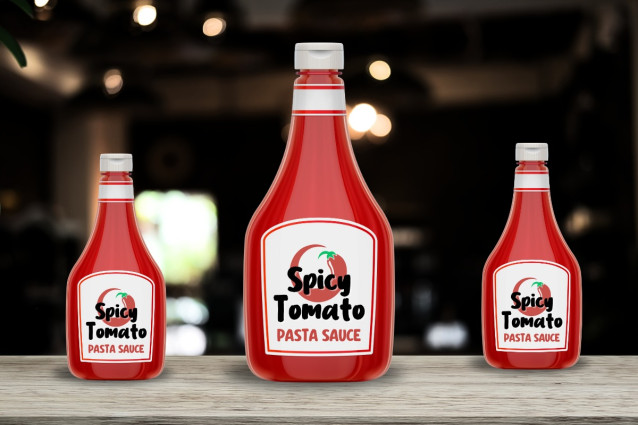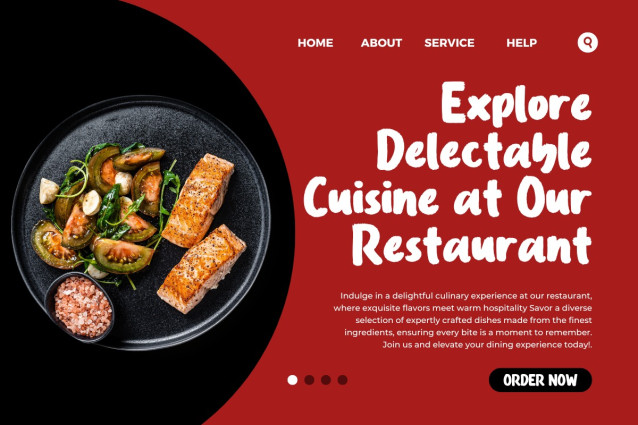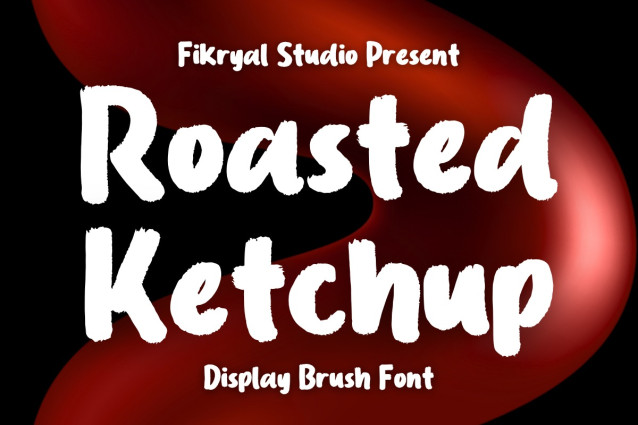
Roasted Ketchup Font
Roasted Ketchup Font is a handwritten brush display font full of character, perfect for various food branding needs. With its natural brush strokes and casual appearance, this font brings an authentic and energetic feel to your designs.